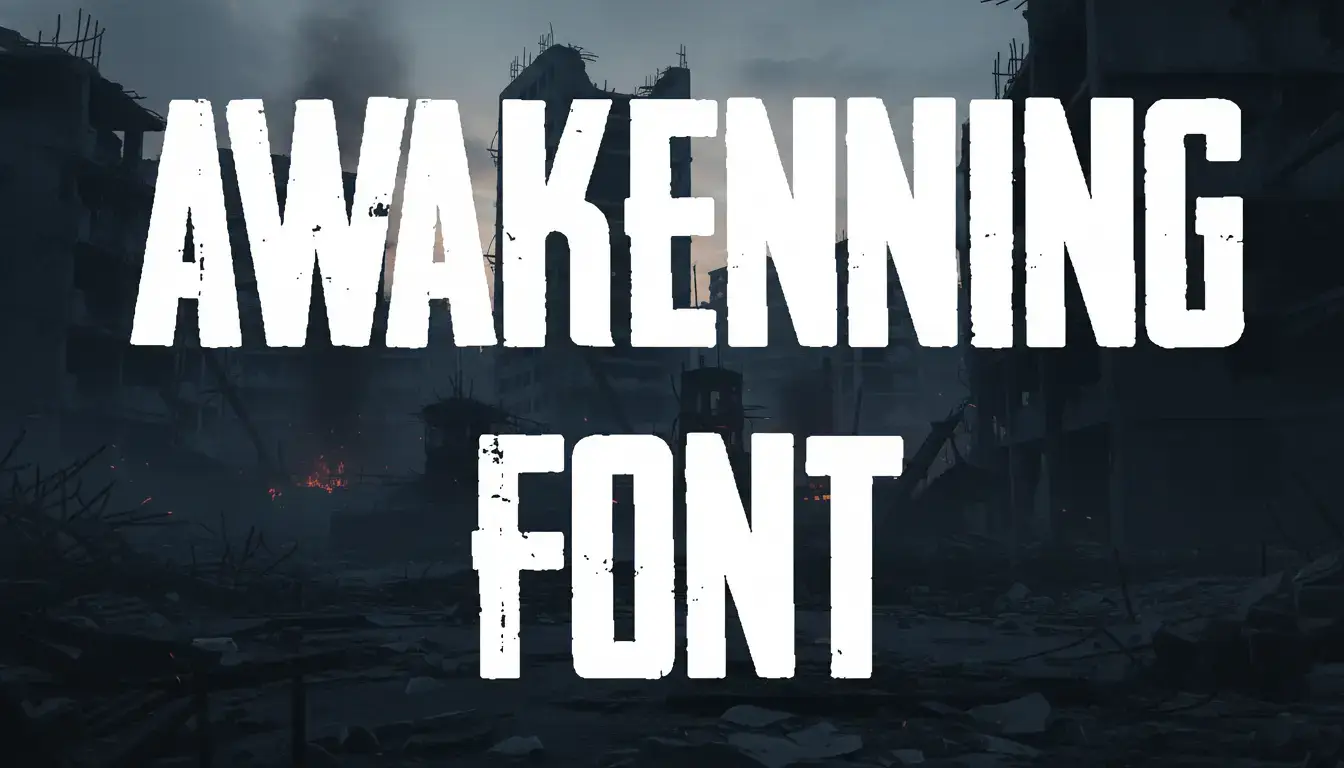
Awakenning Font
Awakenning is a fancy font made by Billy Argel. It's a decorative display font with plenty of personality, made to grab attention. It's a free download, and you can try it with your own text in the preview above first.
What You Can Type With Awakenning
With complete upper and lowercase letters and all ten digits, Awakenning is ready for real wording, not just a single headline. Punctuation is limited, so look at the character map if you need a specific symbol. Thanks to its accented letters, it also works for Spanish, French, German, Portuguese and Italian, not just English.
Where Awakenning Works Best
Think of Awakenning for posters, logos and eye-catching headlines. Use it for one standout word or headline and let simpler fonts handle the rest.
Does Awakenning support accented letters?
Yes. Awakenning includes the accented letters needed for Spanish, French, German, Portuguese and Italian, so it works for more than just English.